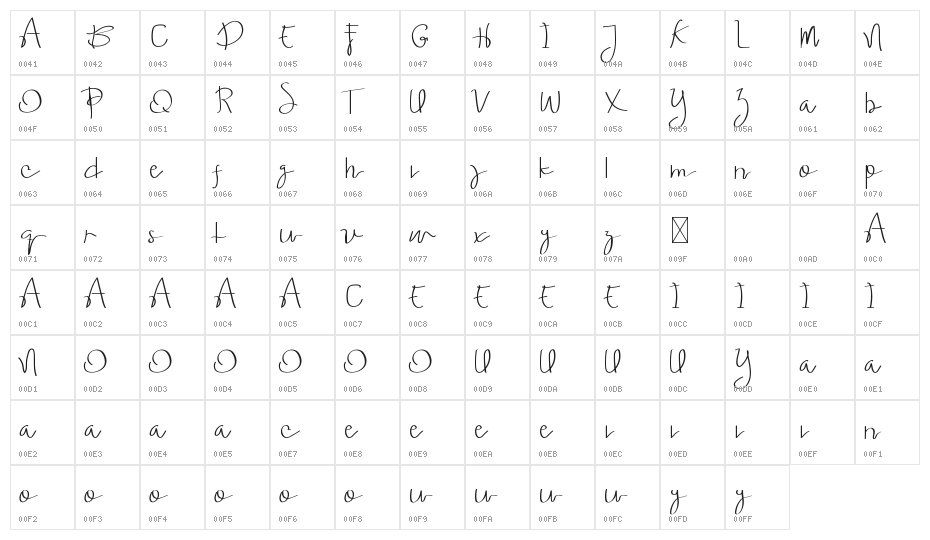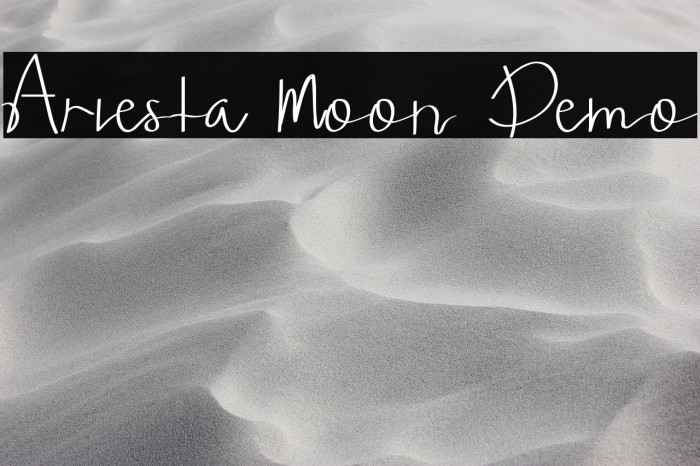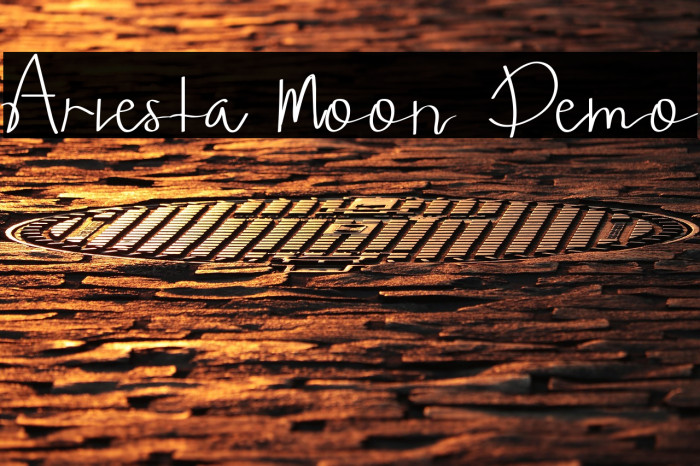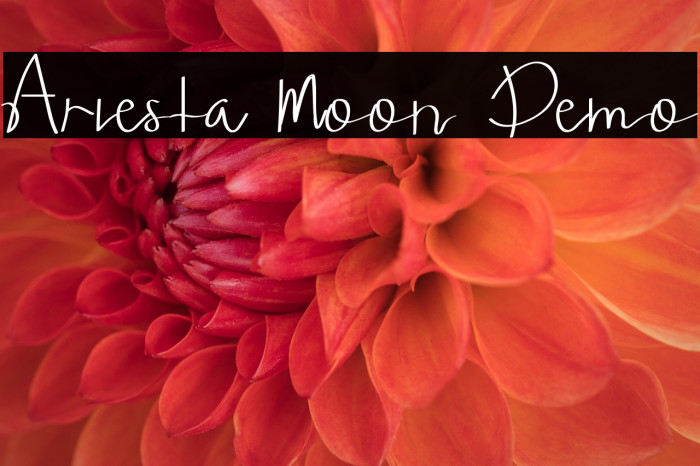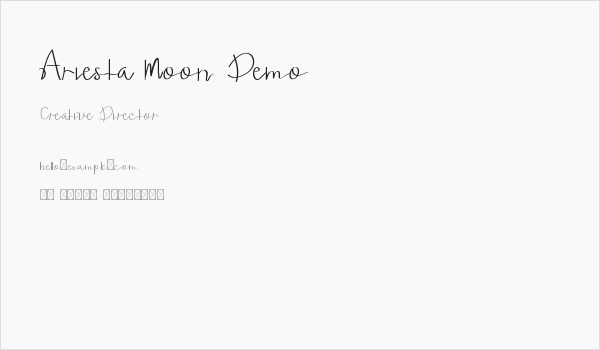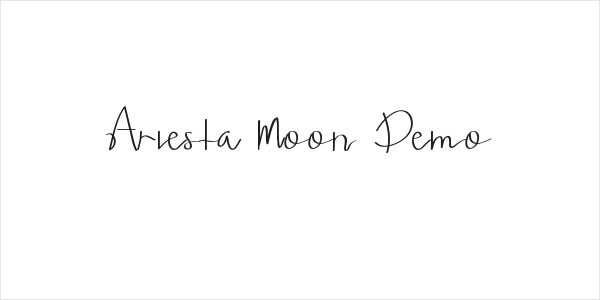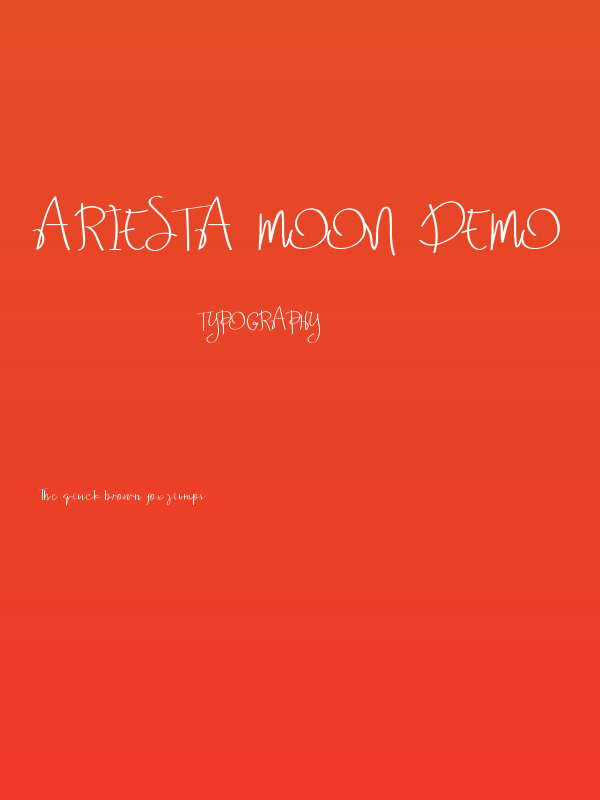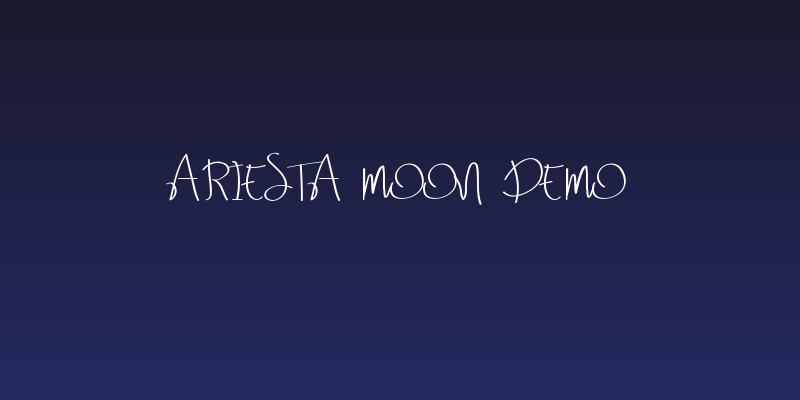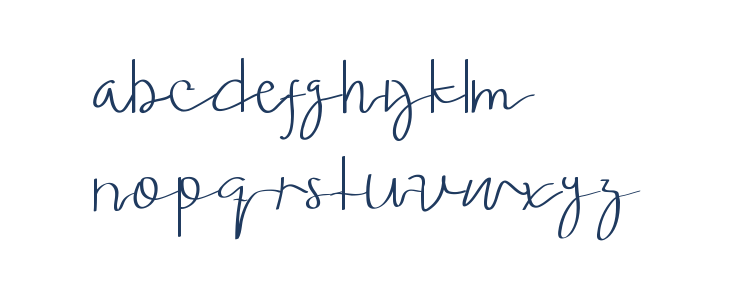
Ariesta Moon Demo Font
Ariesta Moon Demo Description
This font exudes a whimsical and artistic flair, characterized by its flowing, cursive-like strokes that mimic the fluidity of handwriting. The letters are elegantly elongated with playful loops and curves, giving it a dynamic and lively appearance. The uppercase letters maintain a consistent height, while the lowercase letters vary in size, adding to the font's charm. The strokes are thin and delicate, providing a light and airy feel. This font is perfect for projects that require a personal touch, such as invitations, greeting cards, or creative branding. Its unique style captures attention and conveys a sense of creativity and individuality.
| Proposed Projects | Ideal for invitations, greeting cards, creative branding, and artistic projects. |